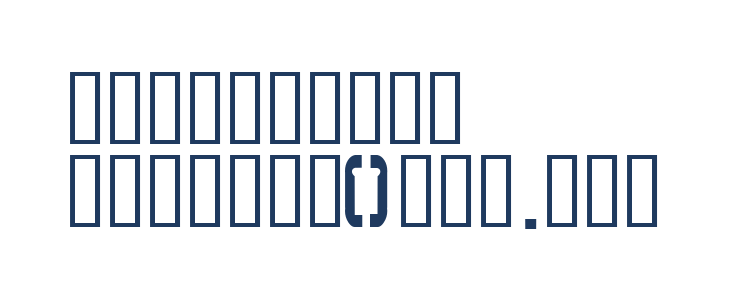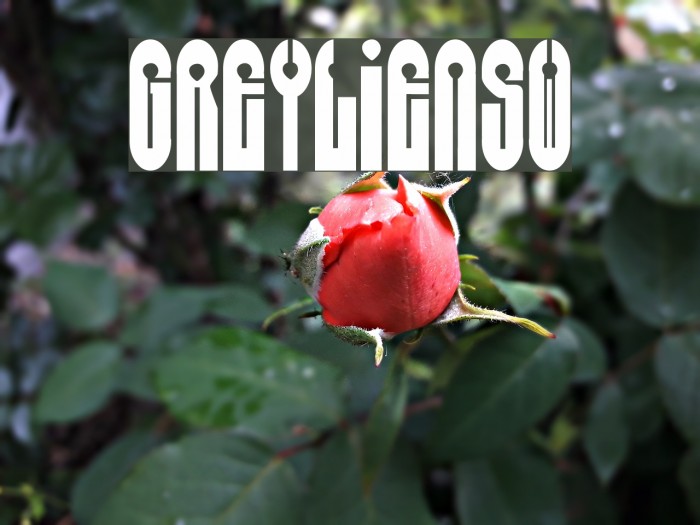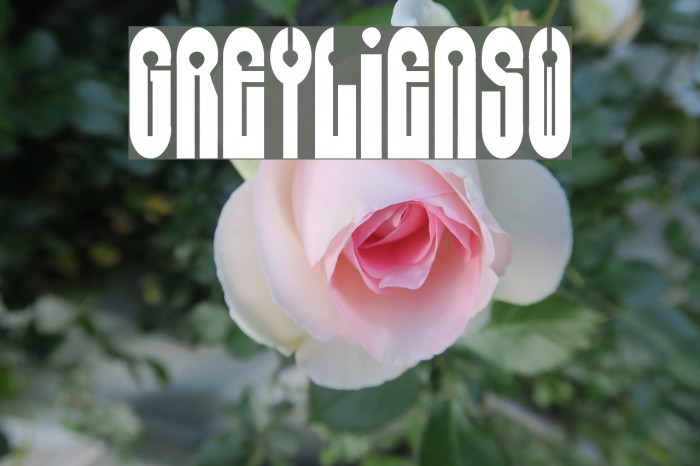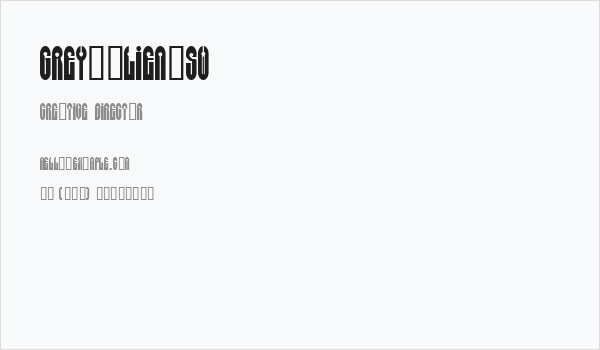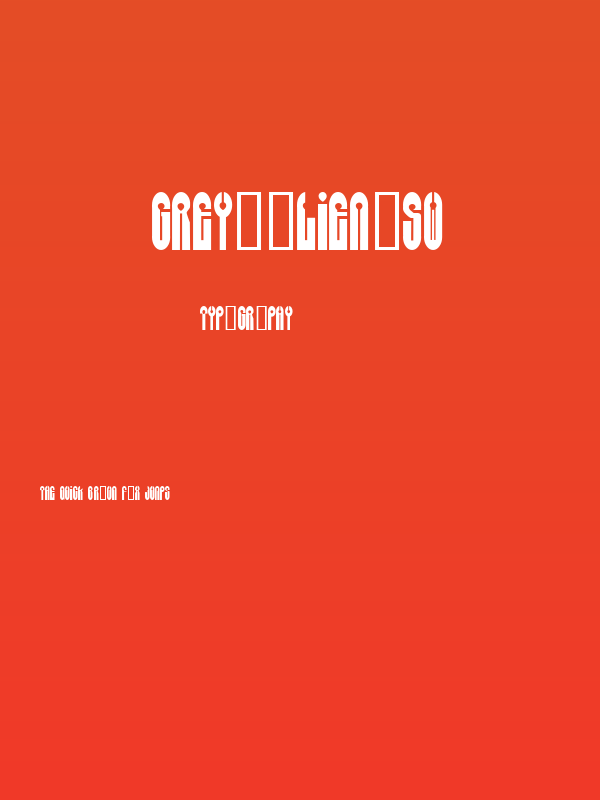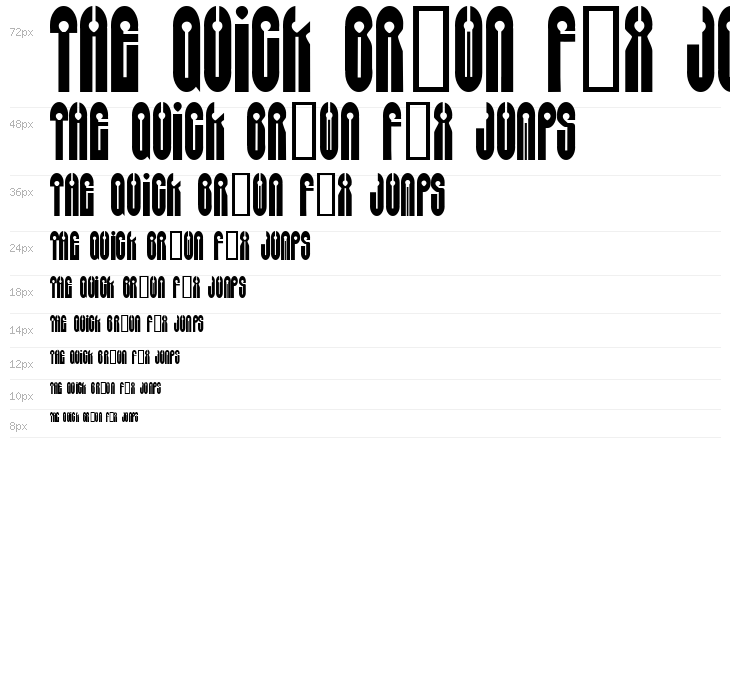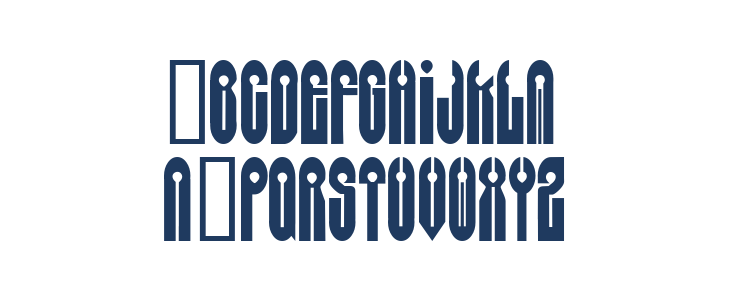
Grey[Alien]SW Font
Grey[Alien]SW Description
This font features a bold and futuristic design with a strong geometric influence. The characters are tall and narrow, with a consistent stroke width that gives them a solid and impactful appearance. The uppercase letters are particularly striking, with unique cutouts and angles that add a sense of modernity and innovation. The lowercase letters maintain the same geometric style, ensuring a cohesive look across all text. The numerals and special characters are designed to match the overall aesthetic, making this font suitable for a variety of creative applications.